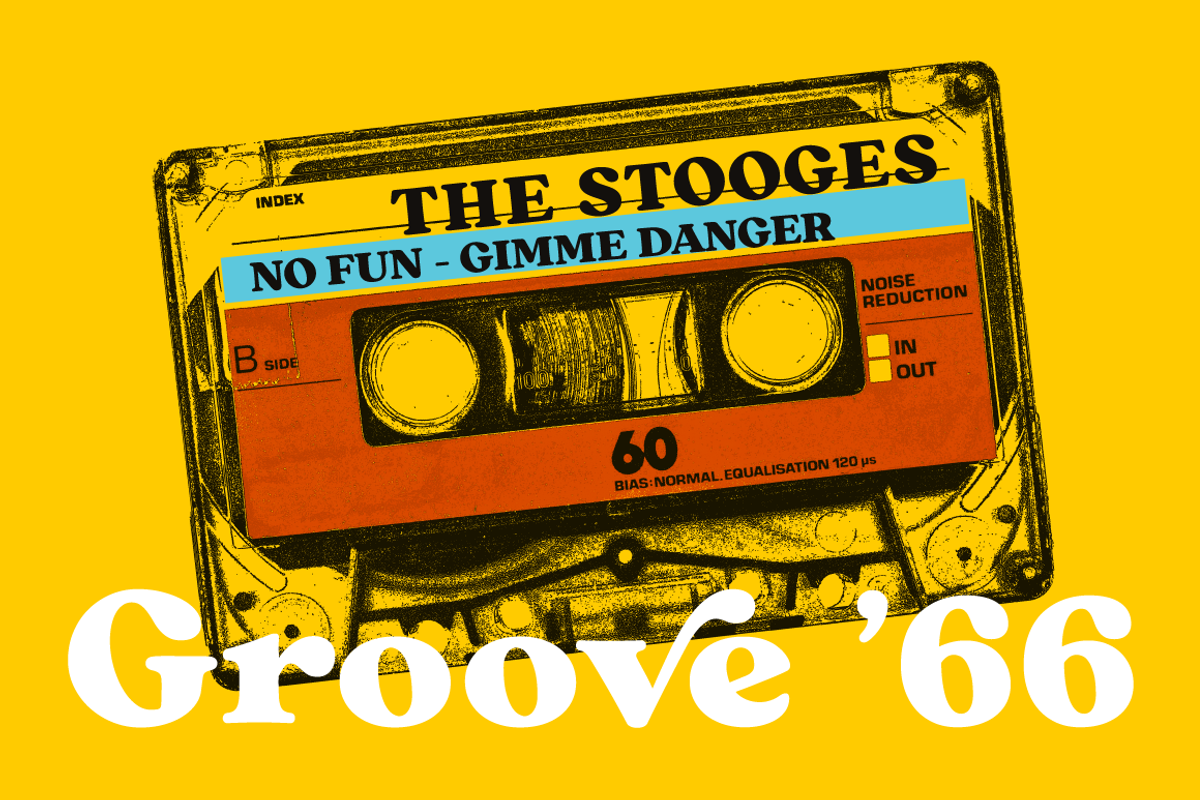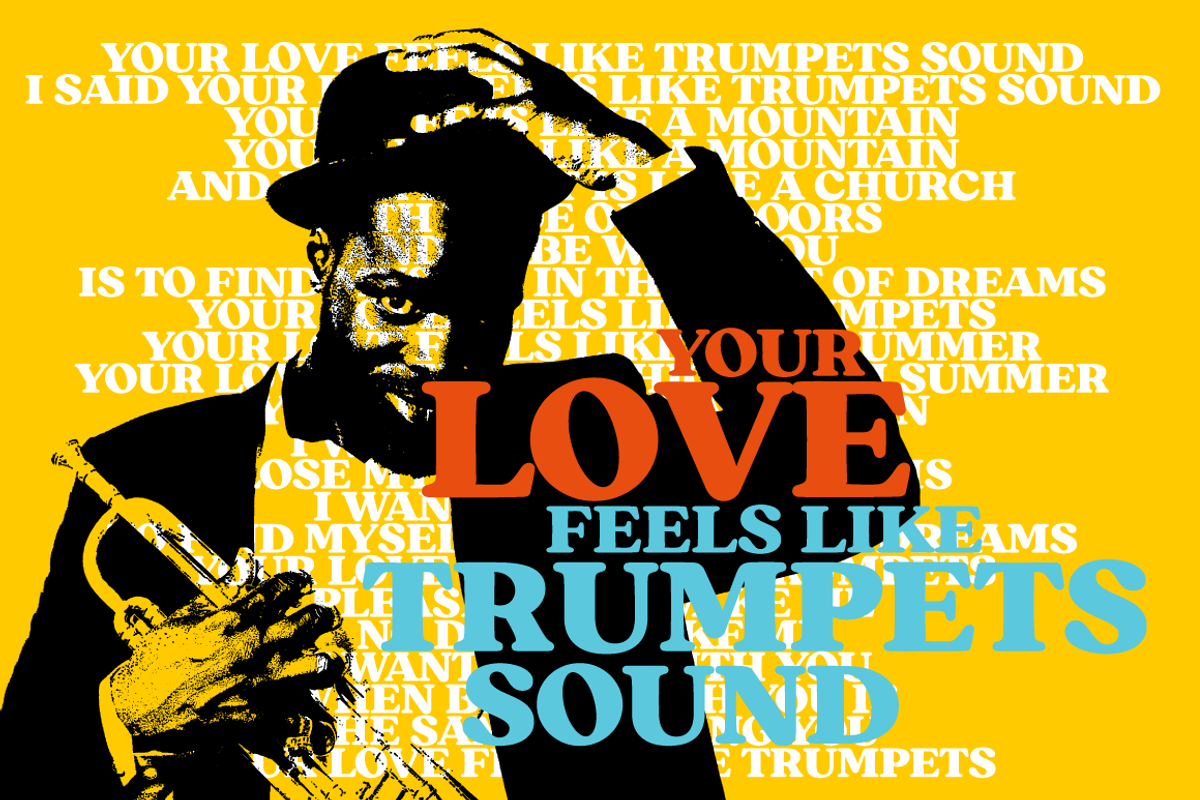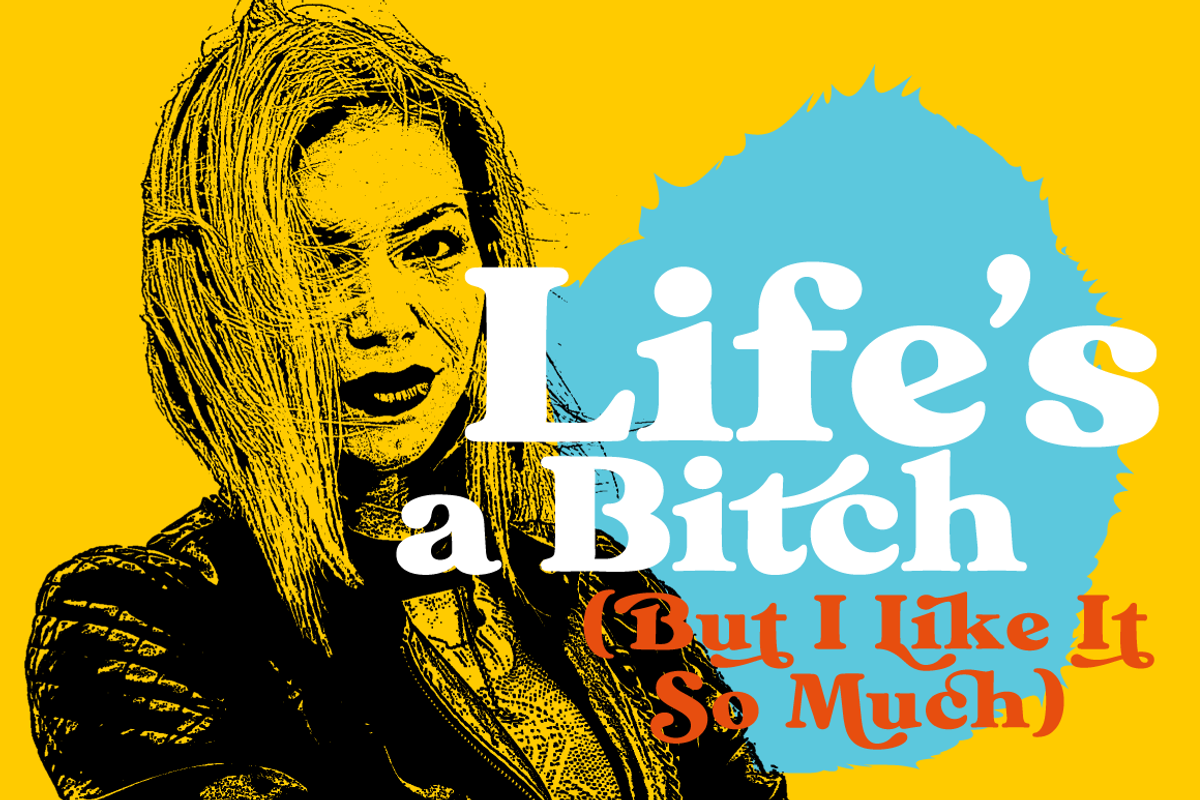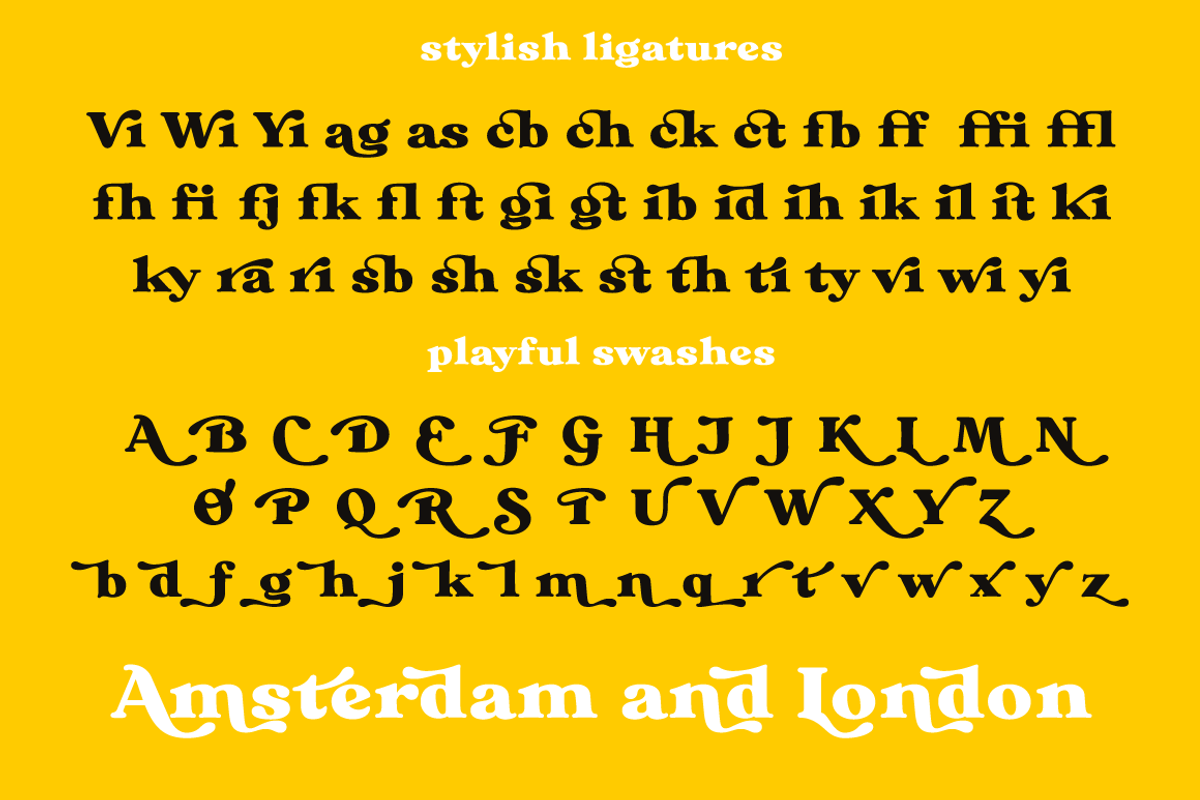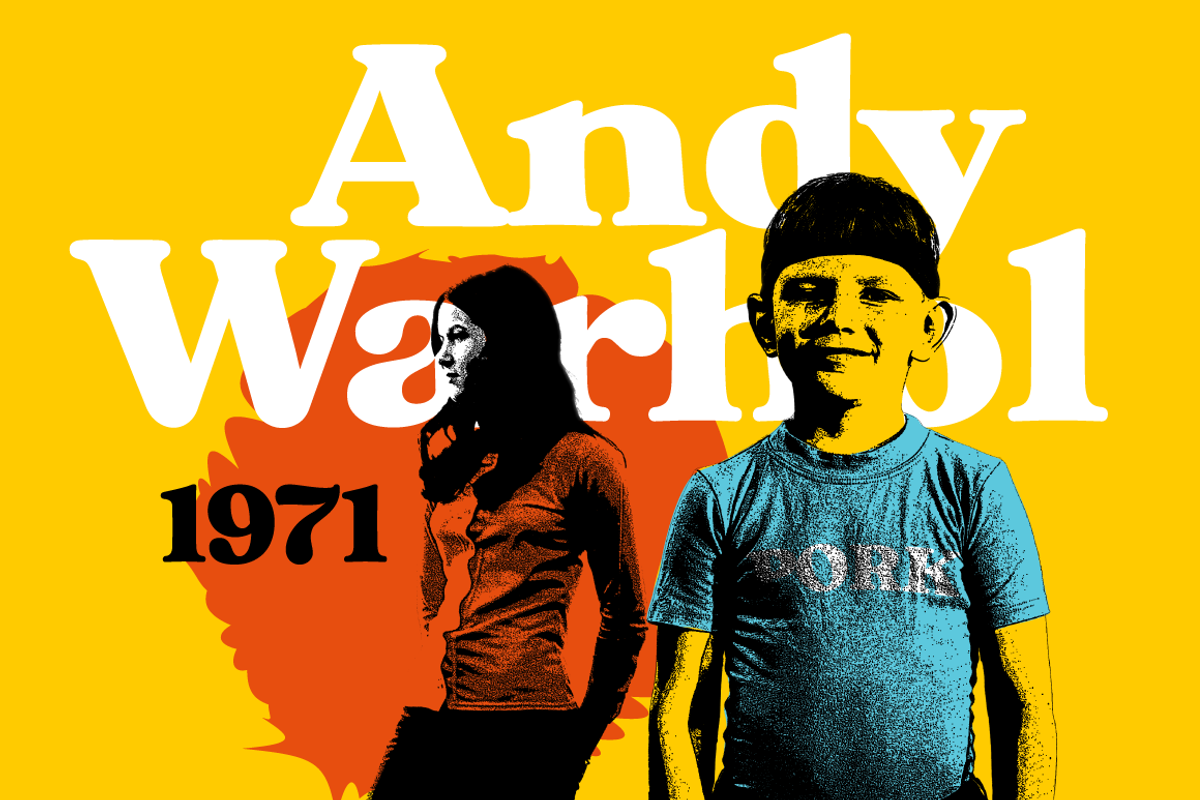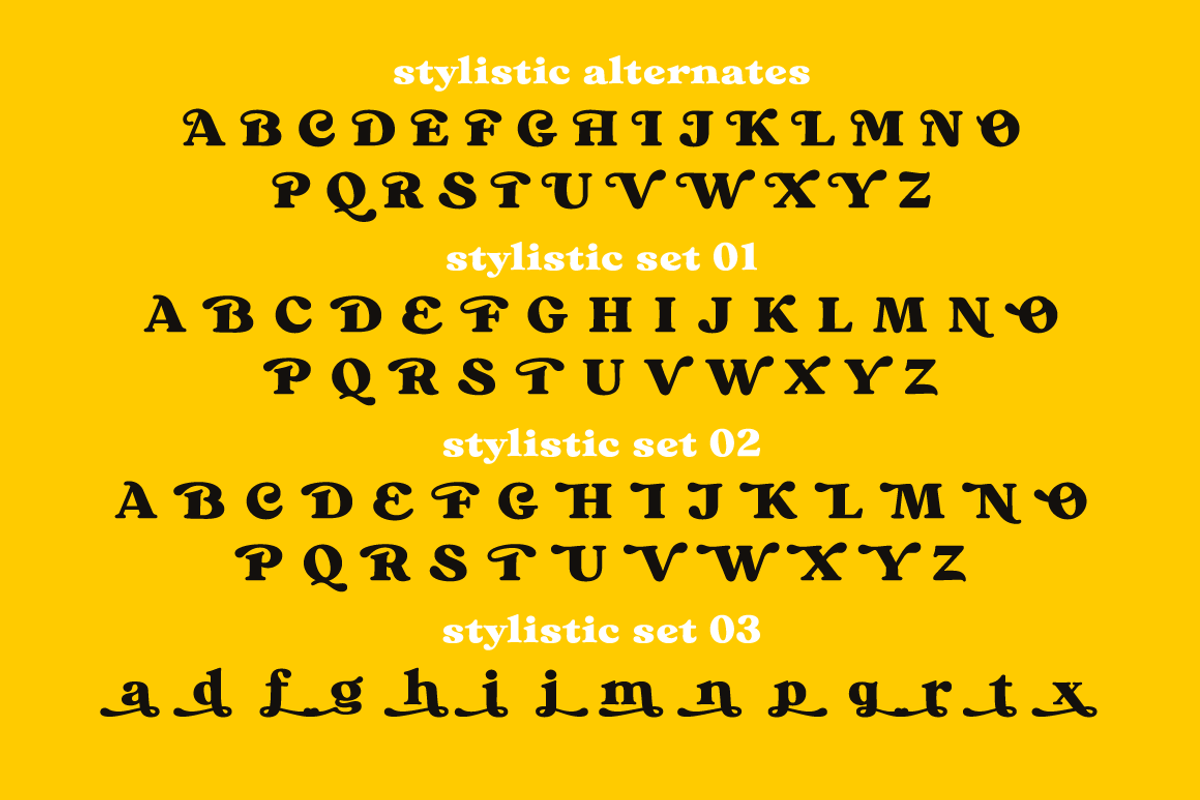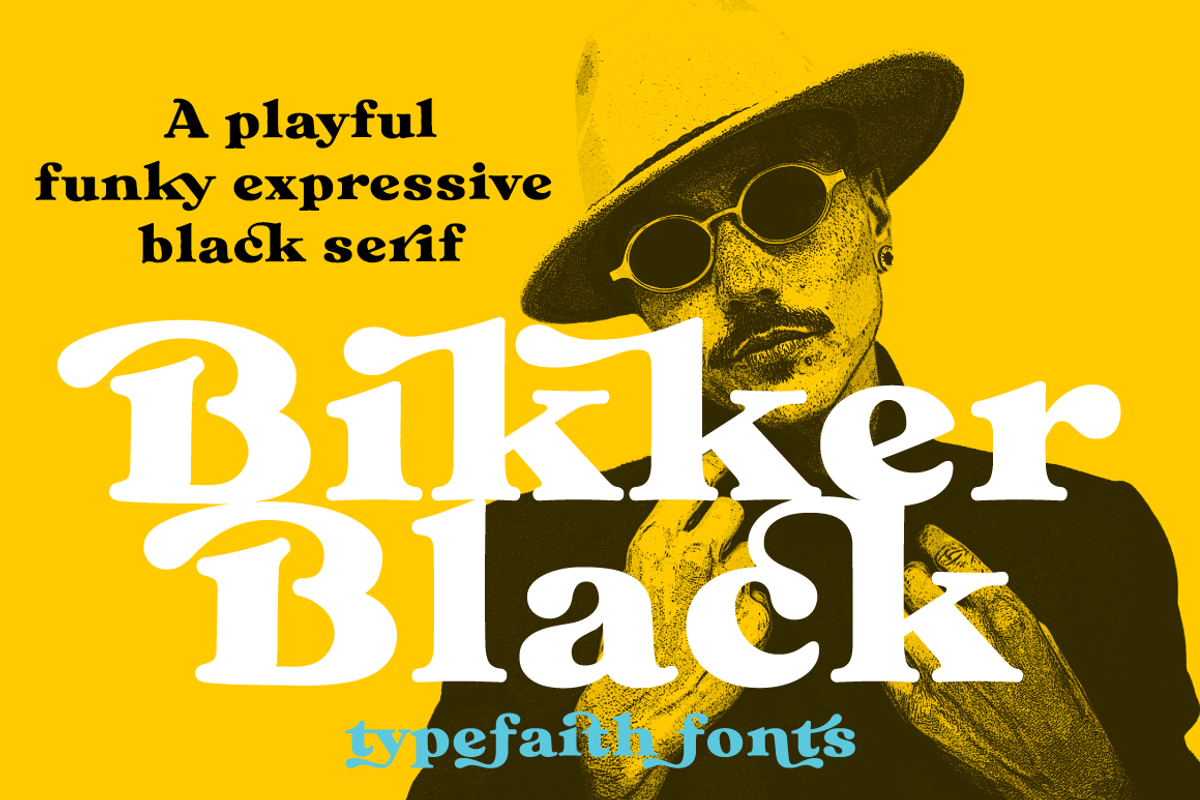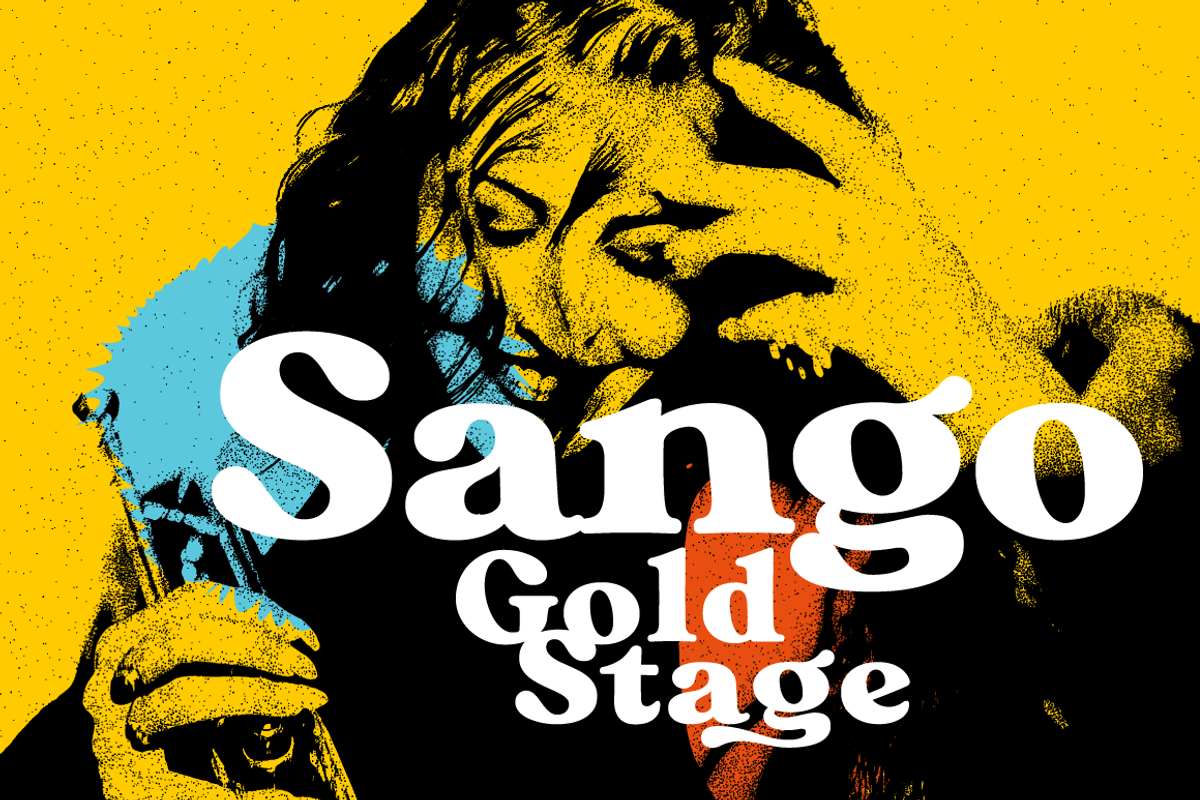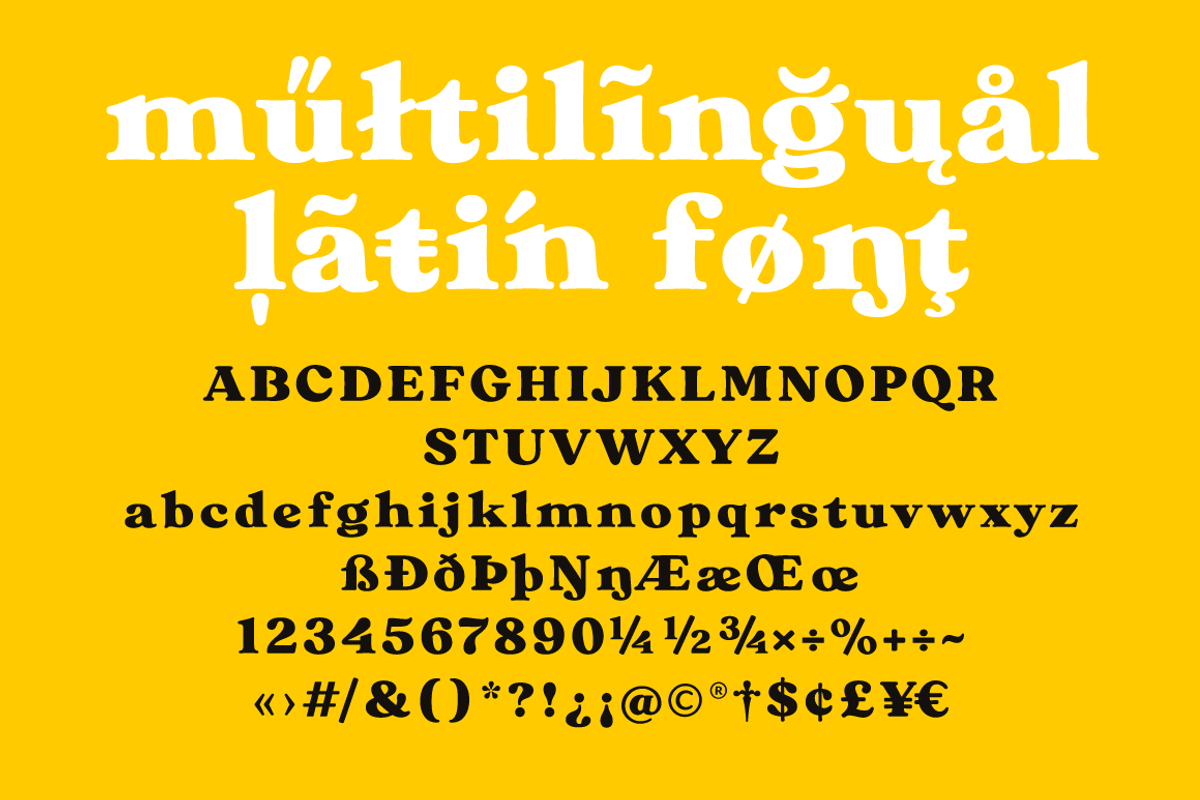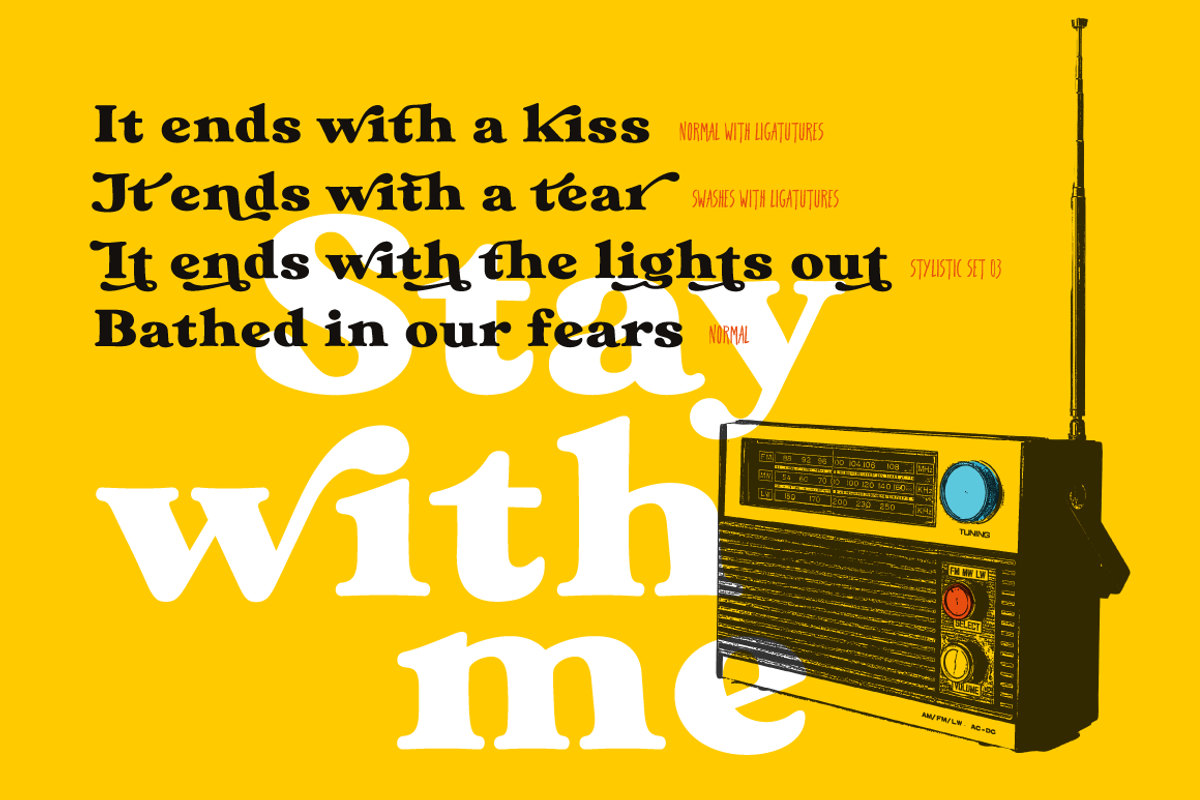
Bikker Black, Funky serifs
Bikker Black Funky serifs. A bit Seventies and a whole load of funky retro energy with modern confidence. This curvy serif font brings psychedelic wackiness to branding and websites with its bold curves and, quirky ligatures.
Bikker is a one single weight font for brand, poster and cover design with many special characters and ligatures. Bikker is a firm, round and playful font from TypeFaith Fonts. Designed because we love the Cooper Black. This and other rounded old style black typeface variations of serif fonts are the basis of Bikker Black. We have added many extras to make the font versatile and playful.